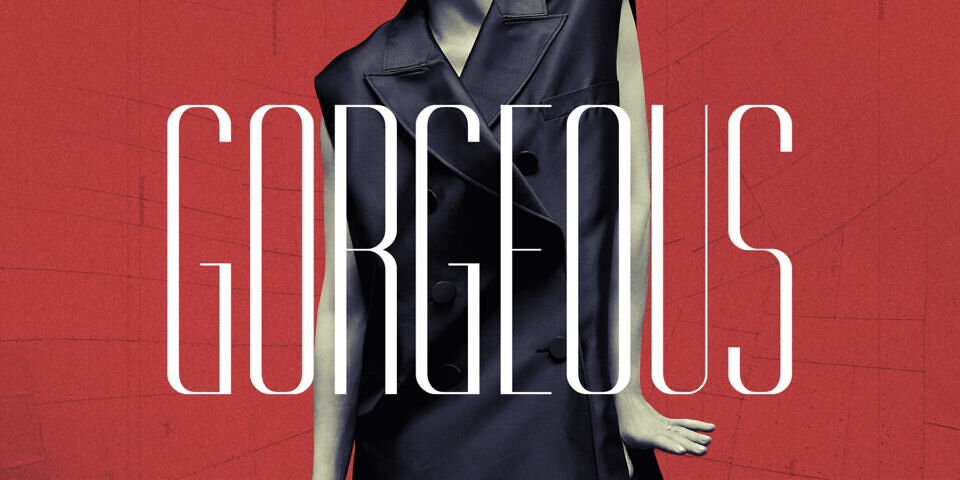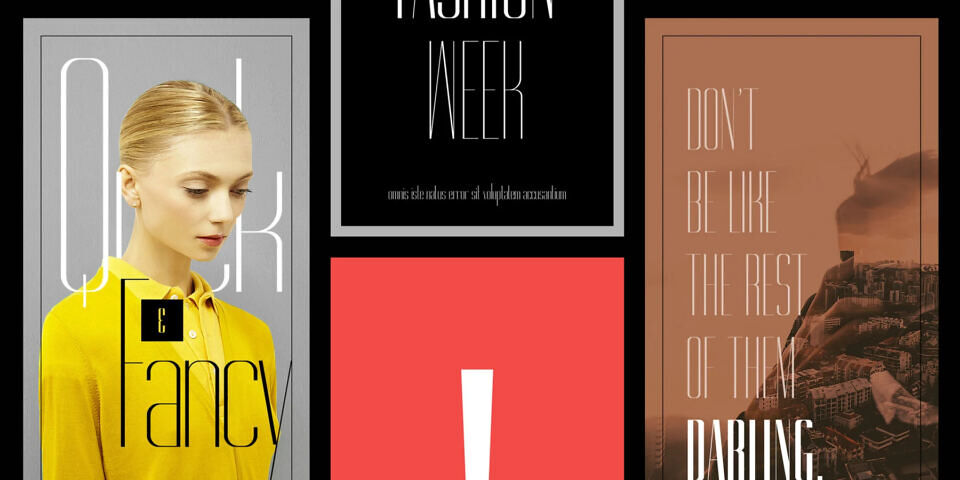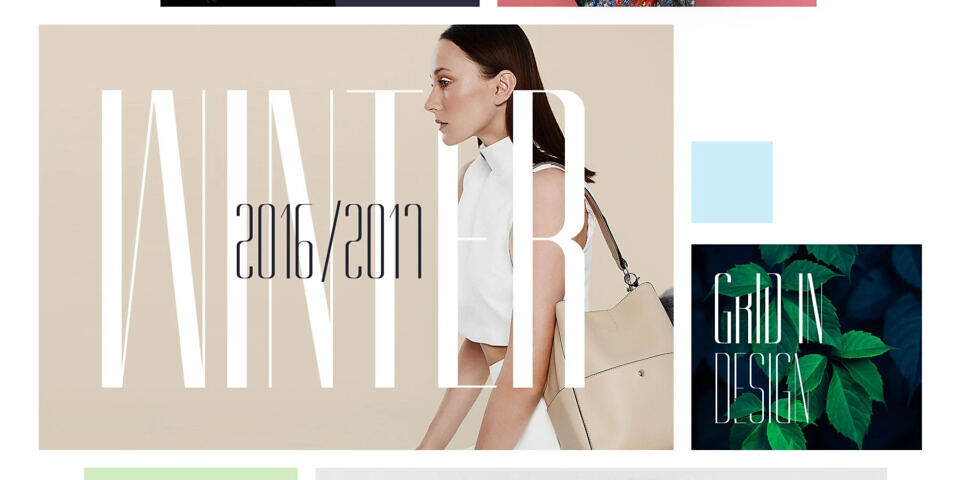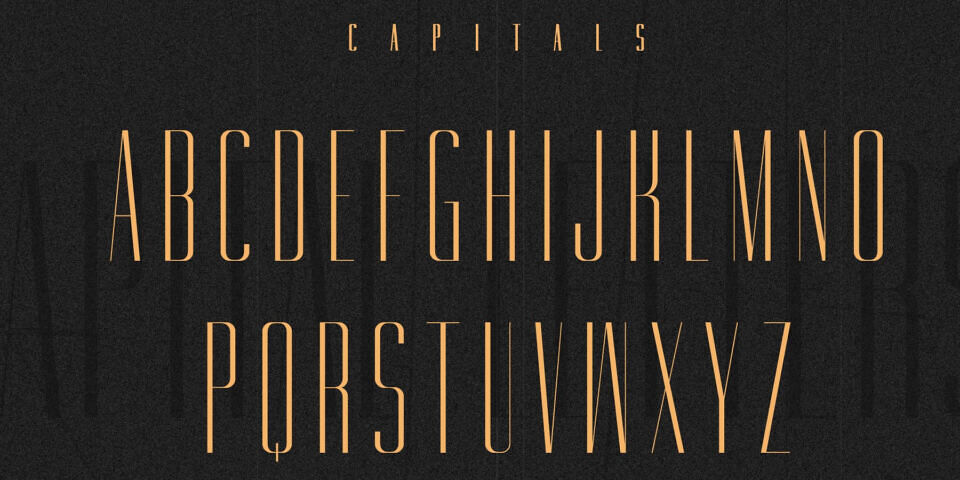
Gorgeous is a display sans-serif condensed type-family with 12 weights. Each font contains 385 glyphs which include small letters, capitals, numbers, punctuations & accents.